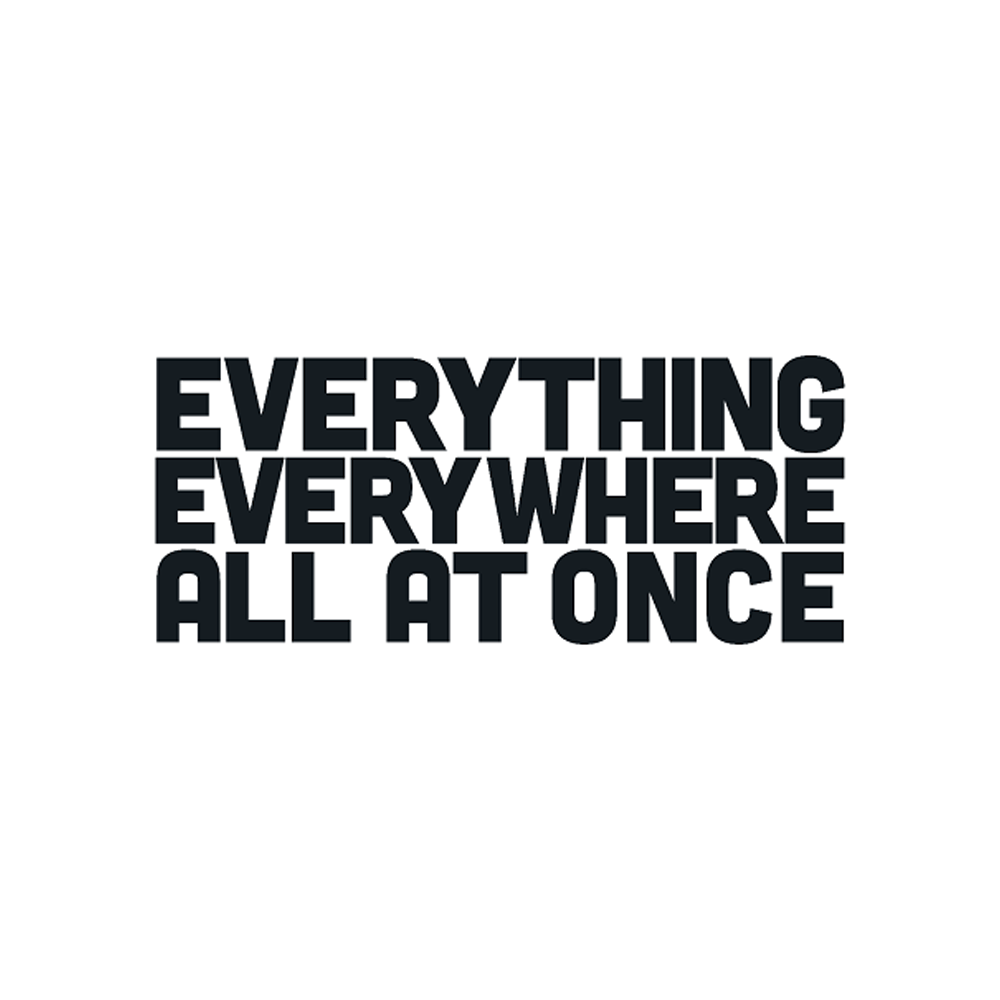
Everything Everywhere All at Once Font
AdventureEverything Everywhere All at Once is a 2021 film directed by Daniel Kwan and Daniel Scheinert. The film follows a group of scientists who discover a way to see every moment in history simultaneously, leading them on a journey to unravel the mysteries of the universe and find their place in it.
The Everything Everywhere All at Once title on the poster is probably set in Cubano Sharp. The typeface was designed by a famous graphic designer Chandler Van De Water and was published in 2012 through Lost Type Co-op. Cubano font family comes in 4 weights including regular, italic, sharp, and sharp italic.